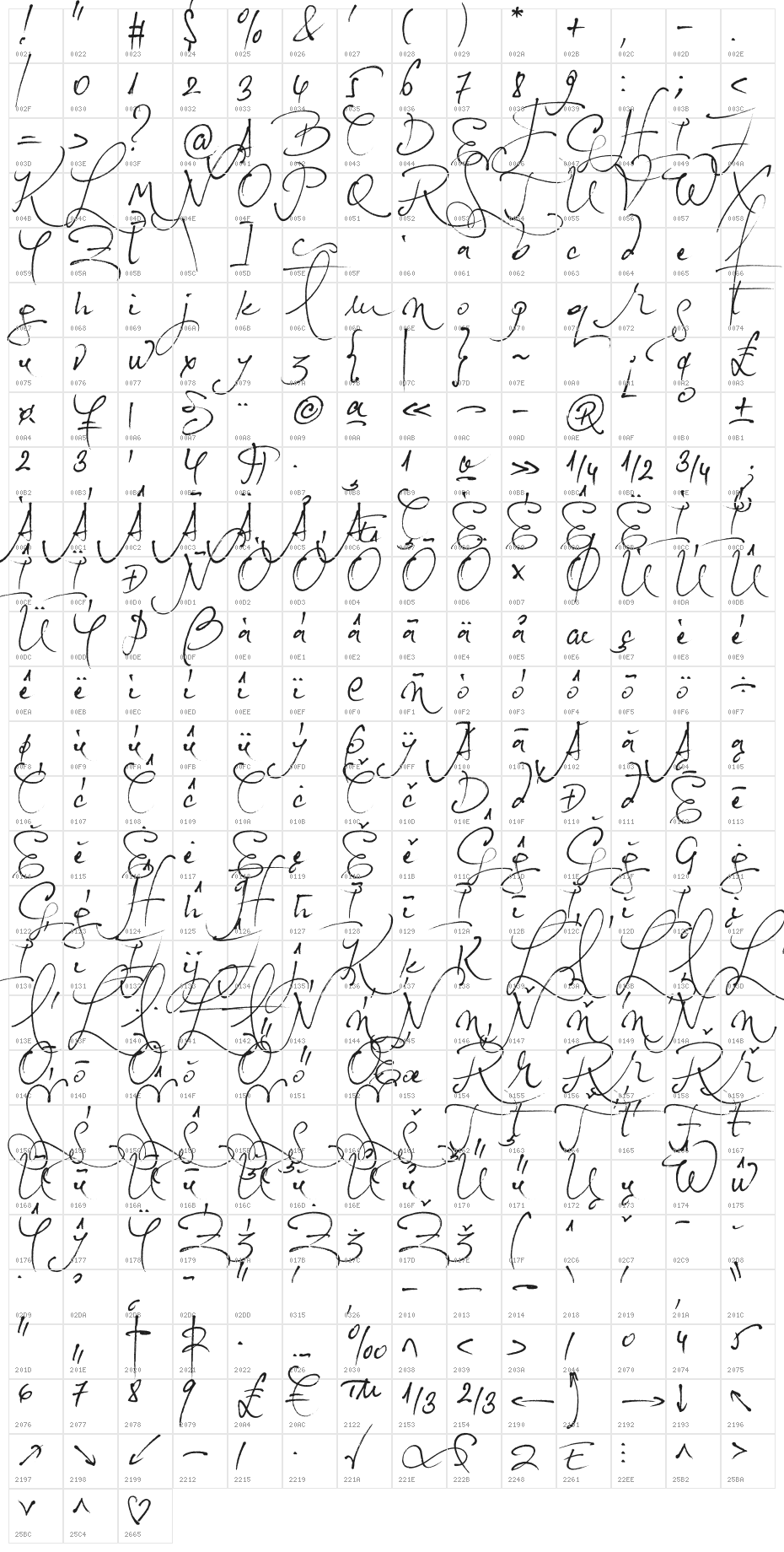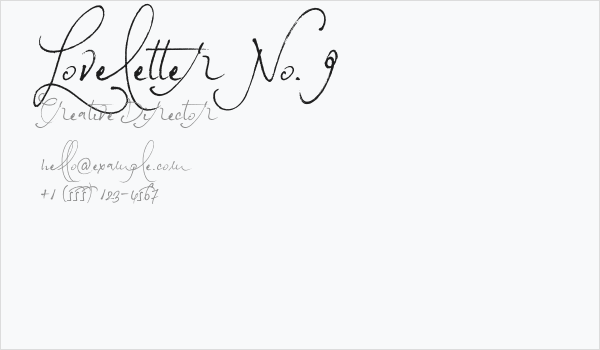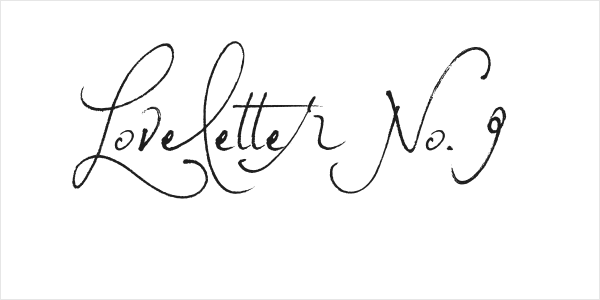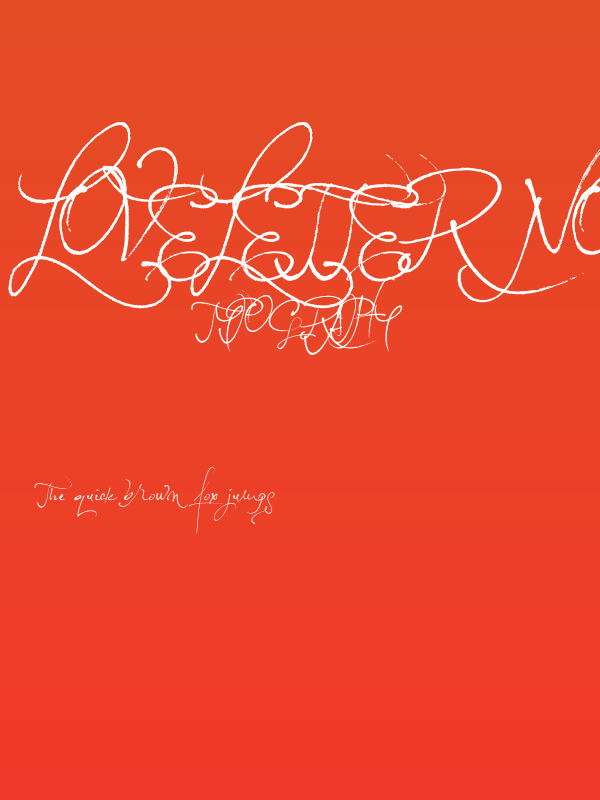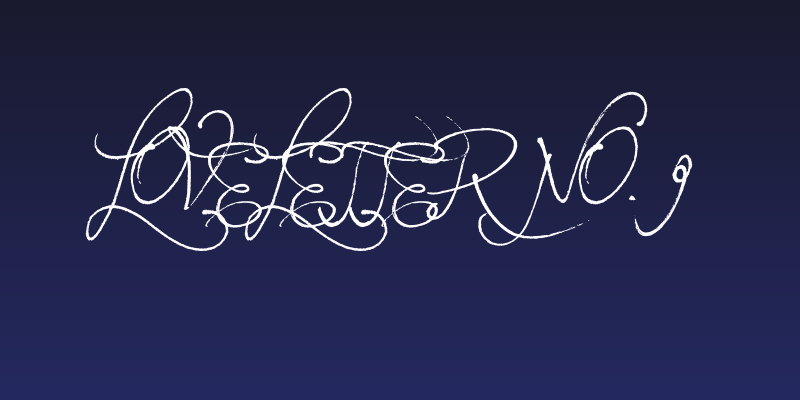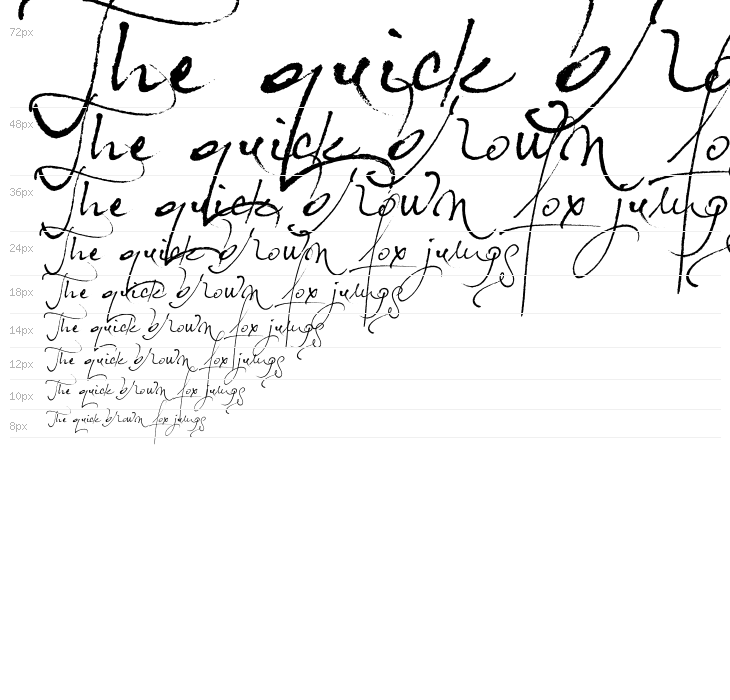
Loveletter No. 9 Font
Loveletter No. 9 Description
This font exudes a romantic and artistic flair, characterized by its flowing, cursive script that mimics elegant handwriting. The letters are intricately designed with sweeping curves and flourishes, giving it a sophisticated and personal touch. The uppercase letters are particularly ornate, with some characters featuring extended loops and decorative elements. The lowercase letters maintain a consistent style, complementing the uppercase with their own graceful curves. Numbers and special characters are equally stylized, ensuring a cohesive look throughout. This font is perfect for projects that require a touch of elegance and creativity.
| Proposed Projects | Ideal for wedding invitations, love letters, greeting cards, and artistic branding projects. |